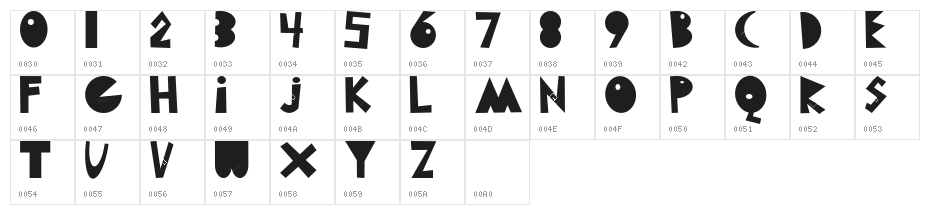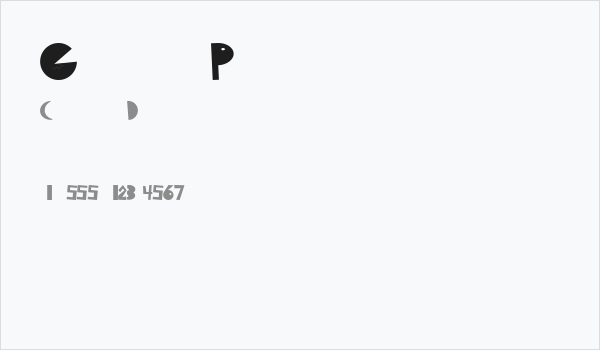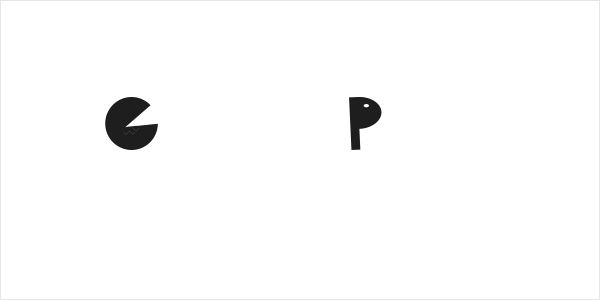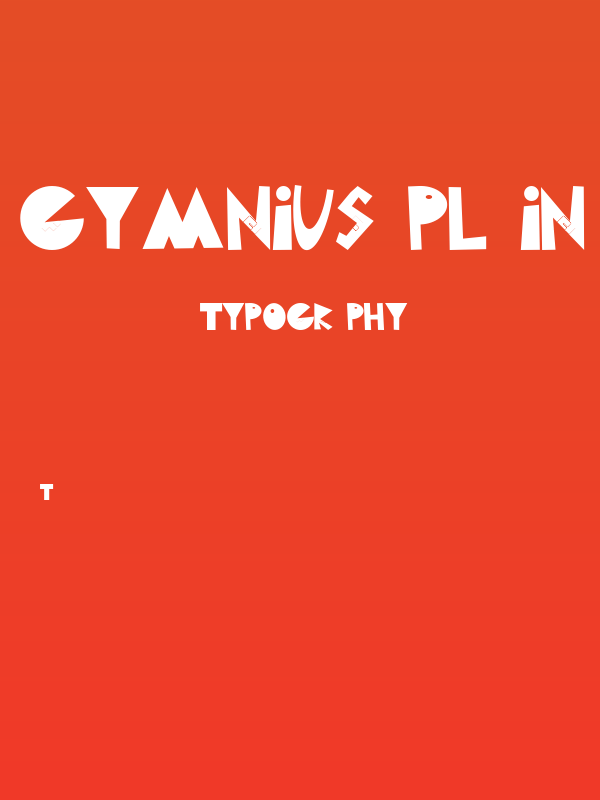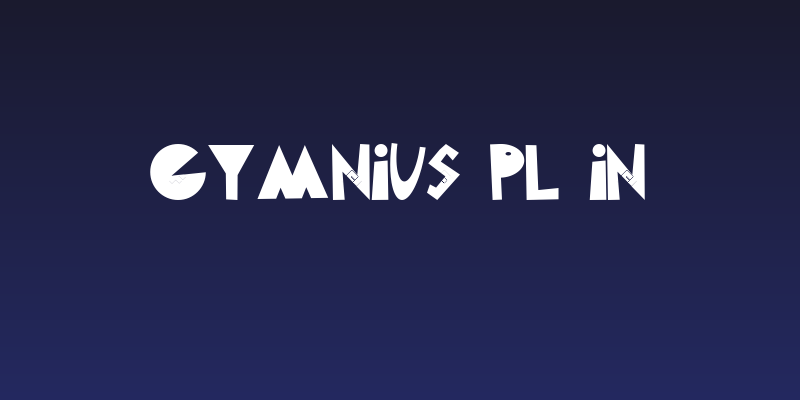
Gymnius Plain Font
Gymnius Plain Description
This font features a bold and playful design with a distinctly geometric and abstract style. The characters are composed of sharp angles and curves, creating a dynamic and eye-catching appearance. The uppercase letters are particularly striking, with exaggerated forms and unique shapes that give the font a whimsical and artistic flair. The lowercase letters maintain the same playful aesthetic, while the numbers and special characters are equally bold and distinctive. This font is perfect for projects that require a fun and creative touch, making it ideal for children's books, posters, and other graphic design projects that aim to capture attention and convey a sense of joy and creativity.
| Overall Style | Playful, Artistic, Geometric |
| Proposed Projects | Ideal for children's books, playful posters, creative branding, and eye-catching graphic design projects. |